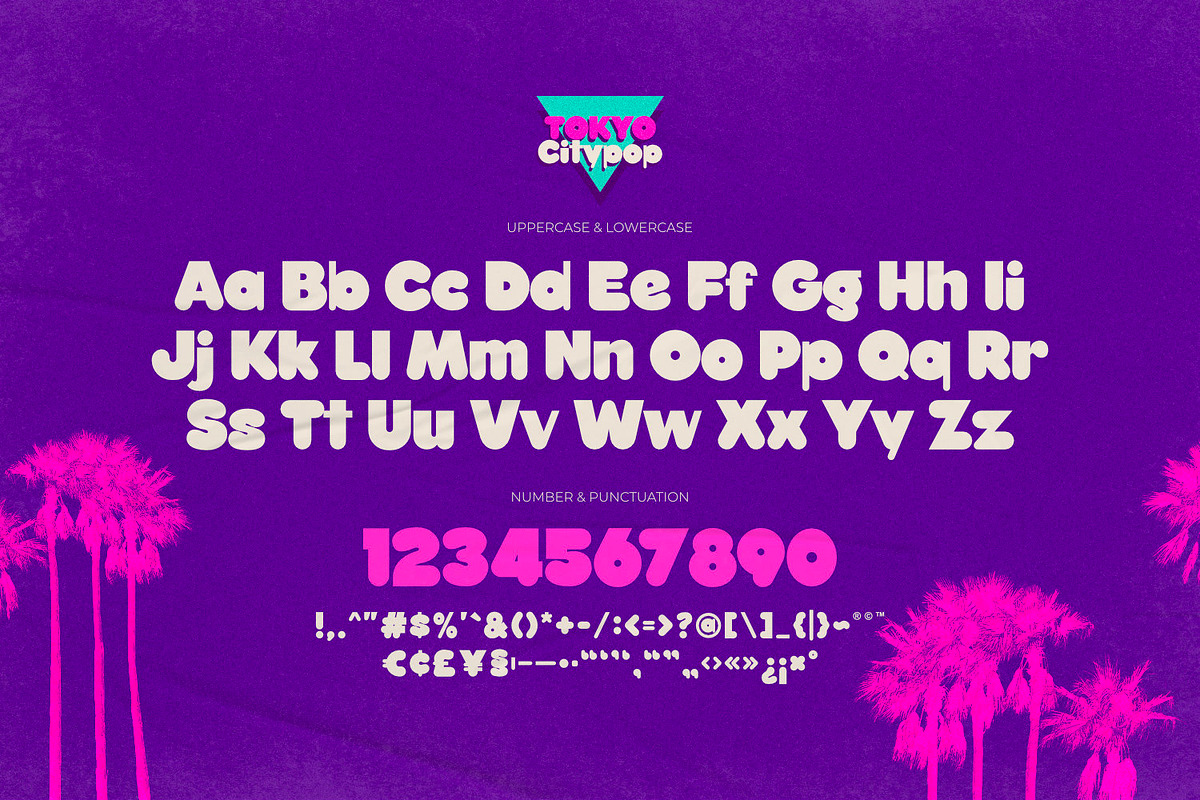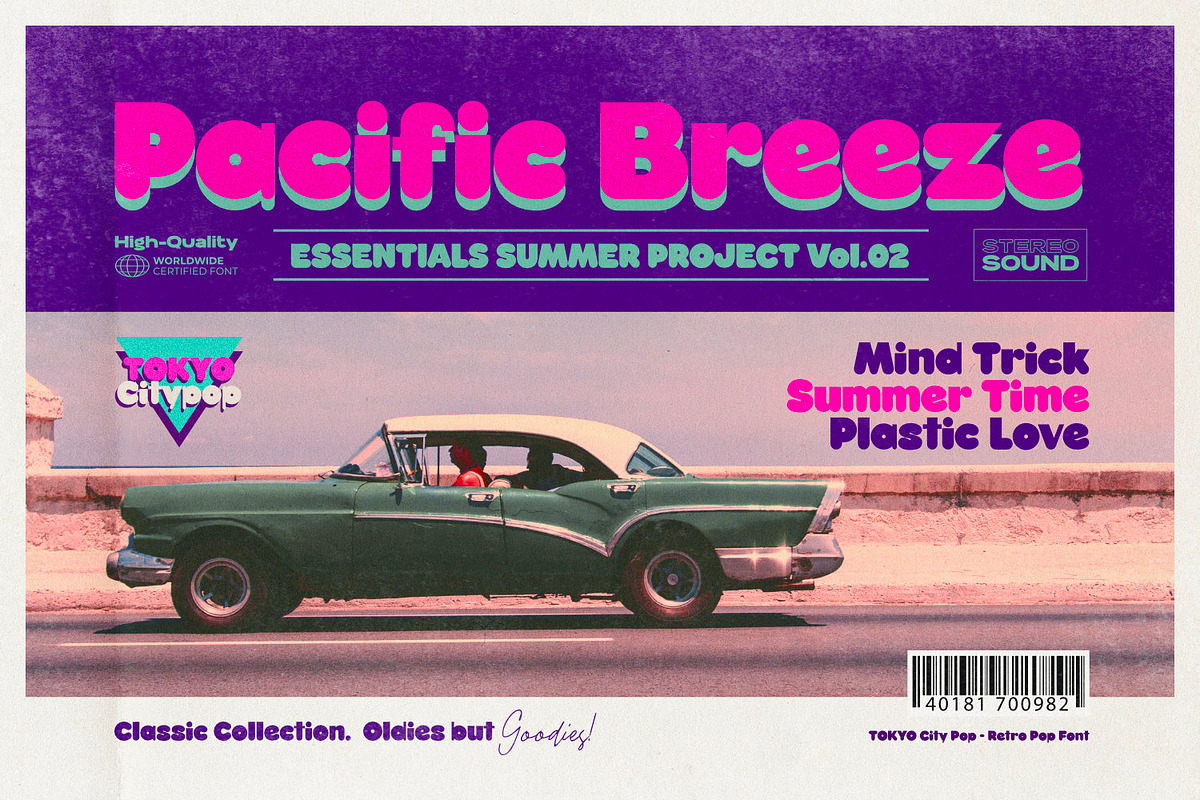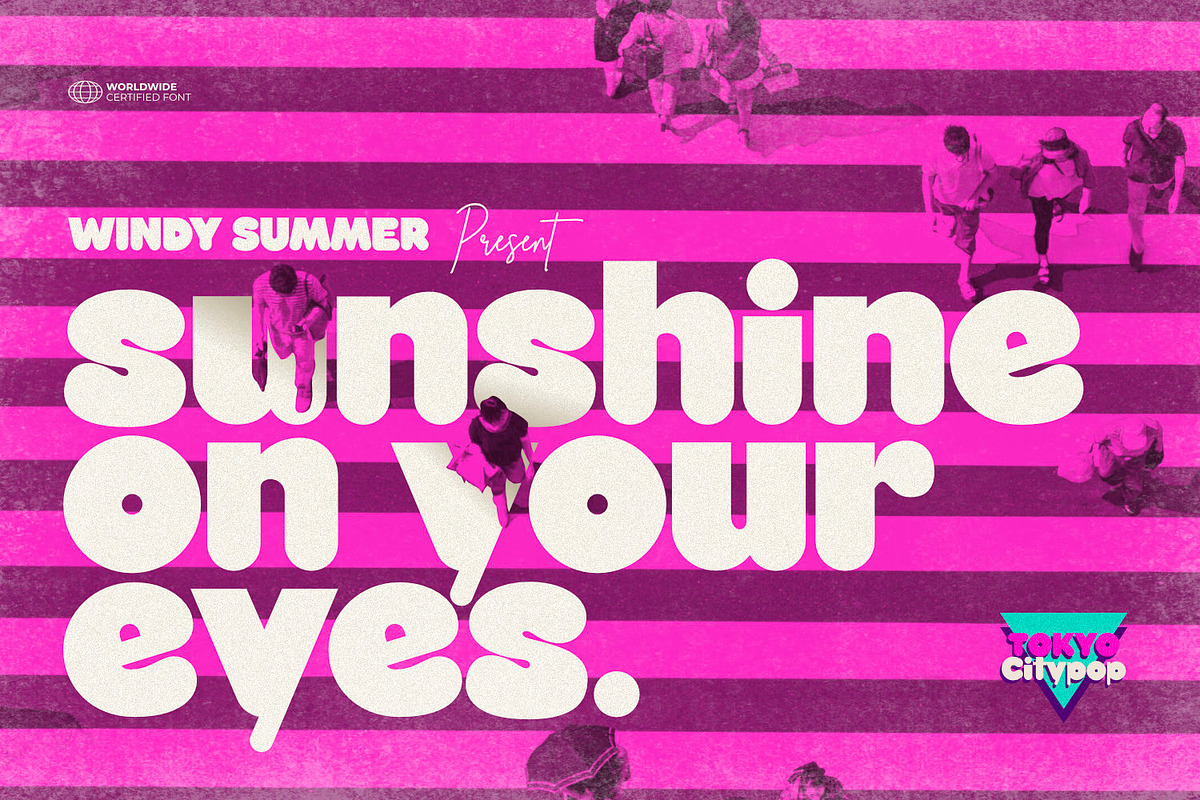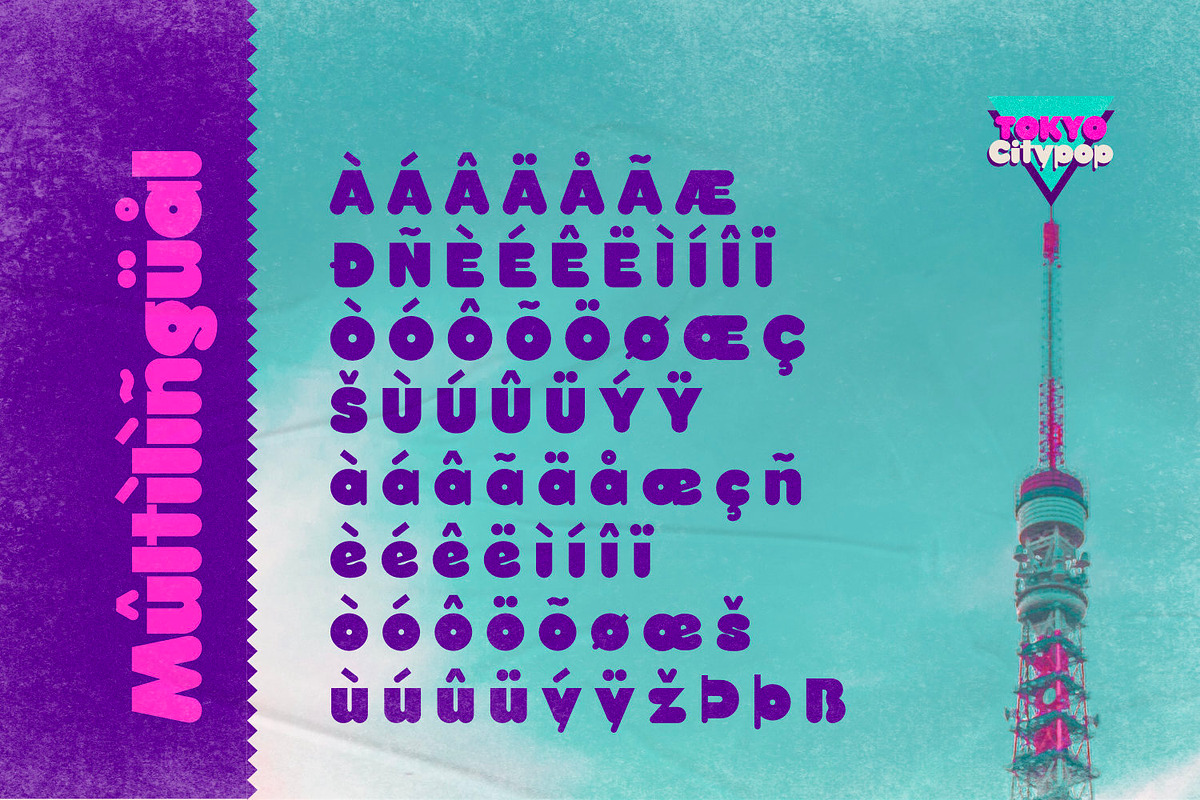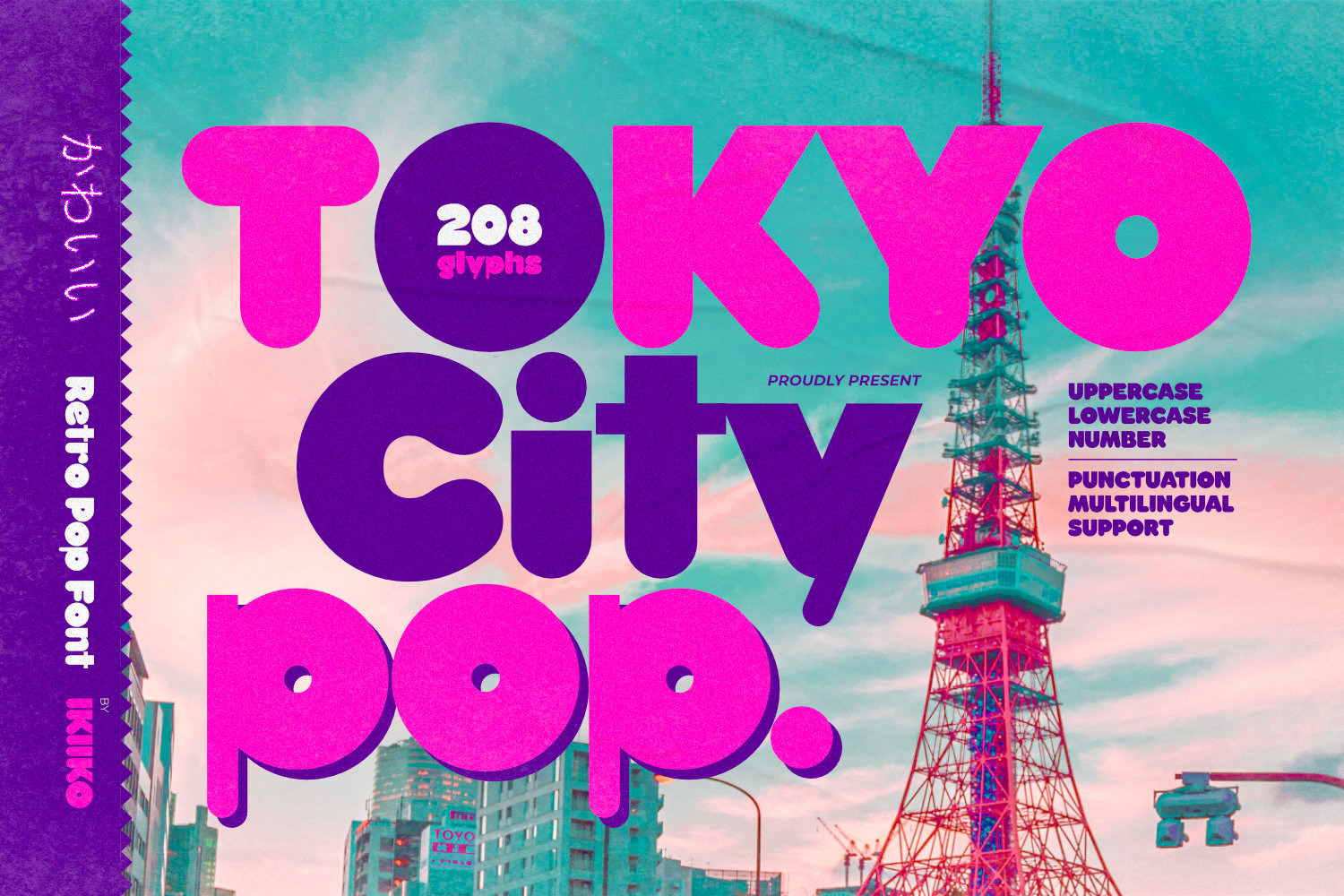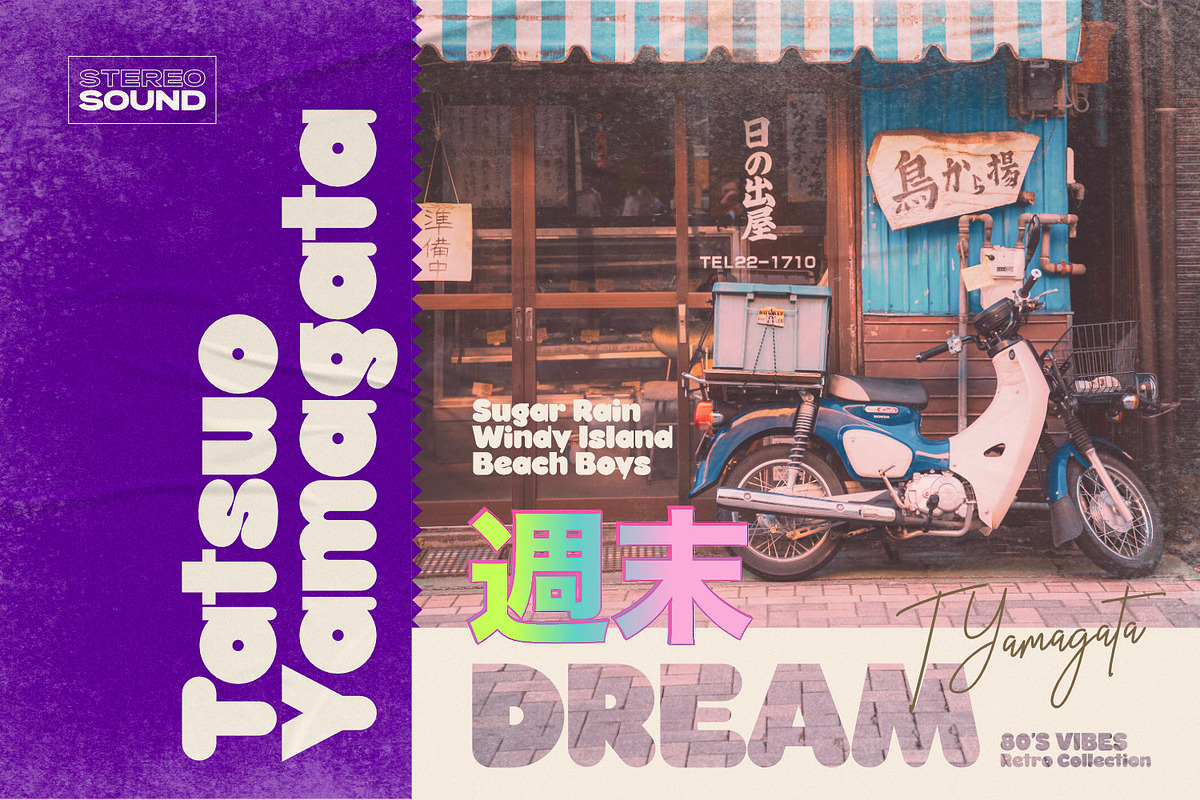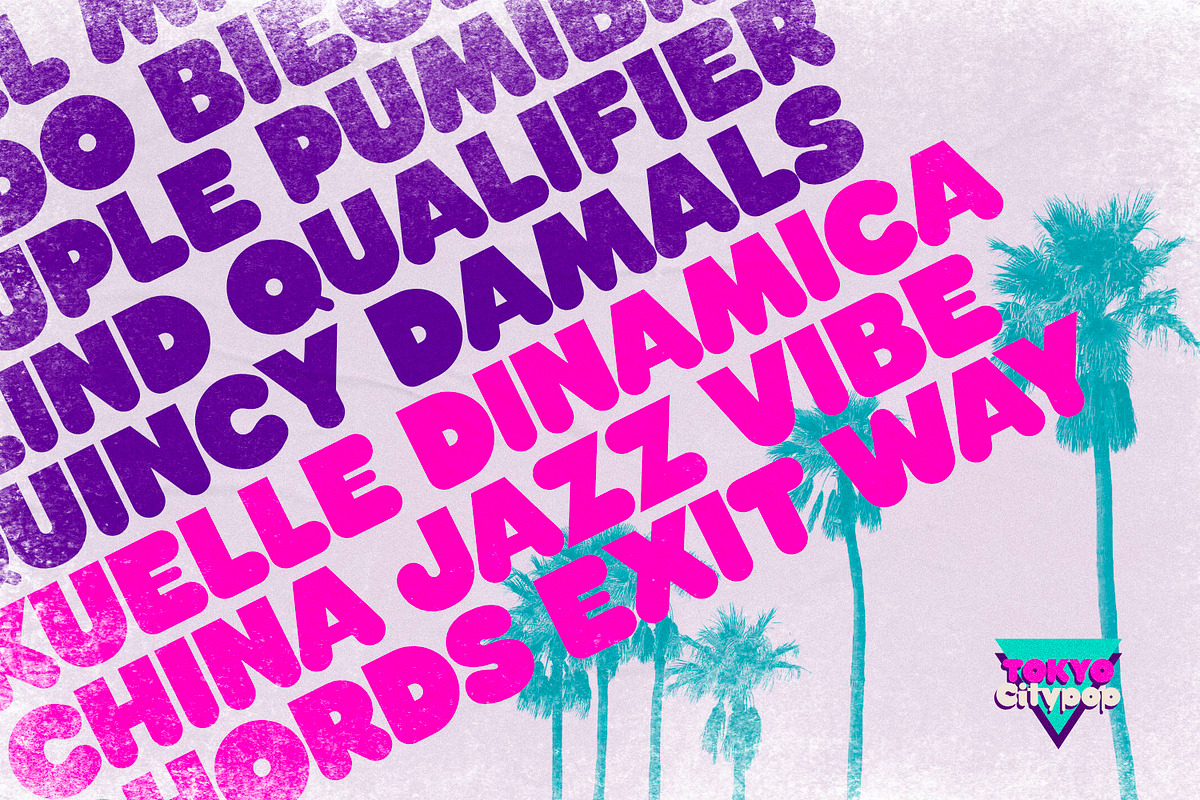
Tokyo City Pop - Retro Pop Font
Proudly present Tokyo City Pop - Retro Pop Font, created by ikiiko.
Are you prepared to add a retro energy and the vivacious pop culture of the 1980s to your creative projects? Look no further than Tokyo City Pop, the ideal retro pop font that is ready to give your creative pursuits a fresh and vibrant edge!
Tokyo City Pop yells instead than merely speaking. Its text is bold and funky, dancing across the page and vibrating with the energy of a busy city. Each word evokes a burst of vitality, embodying the youthful spirit and inventiveness that characterize urban landscape.
This typeface is perfect for an vintage stuff, retro poster layout, magazine design, packaging, food & beverages and also good for quotes, or simply as a stylish text overlay to any background image.